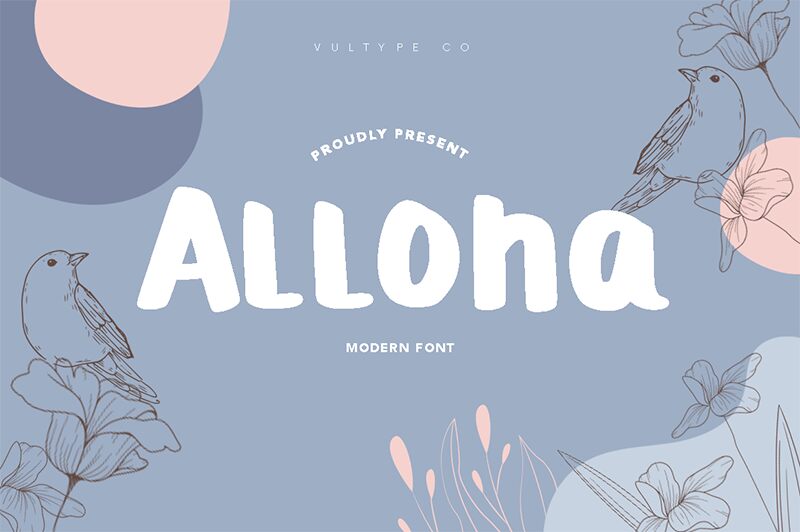
Alloha
Looking for a bold and expressive handwritten font for your next creative project? Look no further than Alloha, designed by Vultype. This unique typeface exudes personality and charm, making it perfect for a wide range of design applications. Whether you're working on branding, packaging, posters, or social media graphics, Alloha's bold weight and distinctive style will make your text stand out.
With its fluid strokes and casual elegance, Alloha adds a touch of warmth and authenticity to any design. Its versatility allows for seamless integration into various projects, from playful and whimsical to modern and sophisticated. Embrace the dynamic nature of this font to captivate your audience with its compelling visual appeal. Elevate your creative work with the distinctiveness of Alloha.